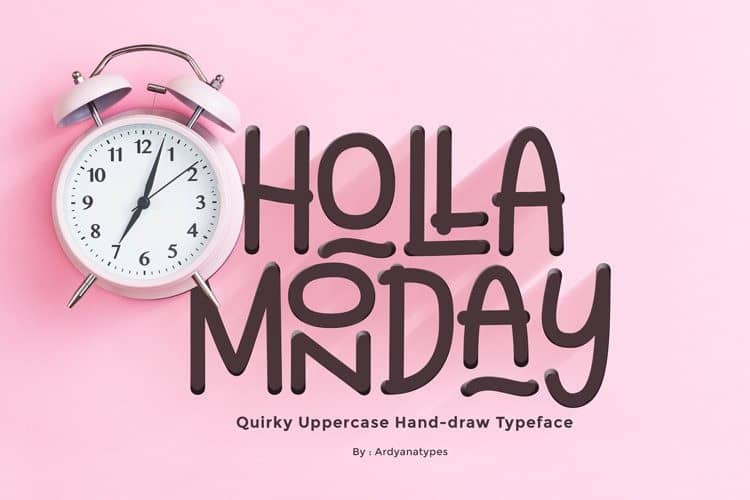
Holla Monday Display Font
Introduce Holla Monday Display Font, Holla Monday has an open type feature that will automatically turn each character into a binder.
Gives a cheerful impression, making it very easy to read and apply to all design projects such as poster designs, clothing, logos, quotes, album covers, books, business cards, product designs, and many more design projects.